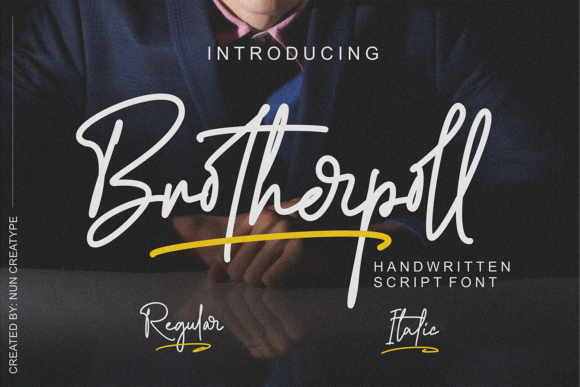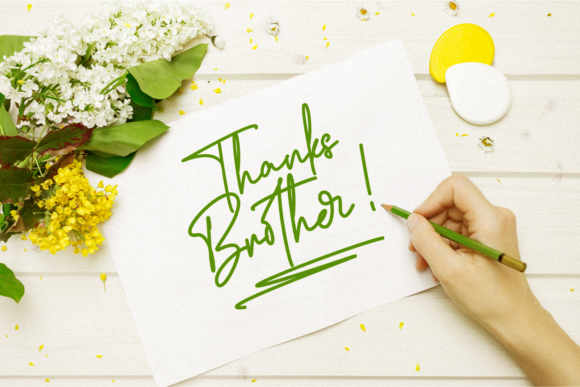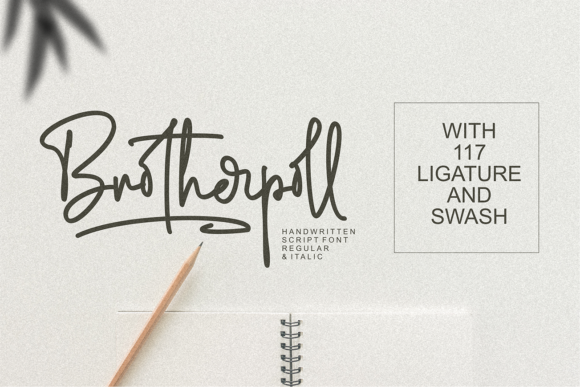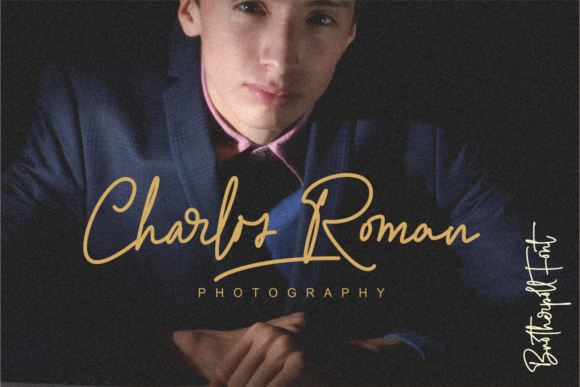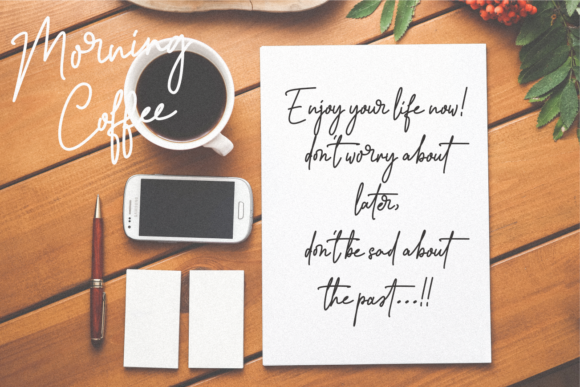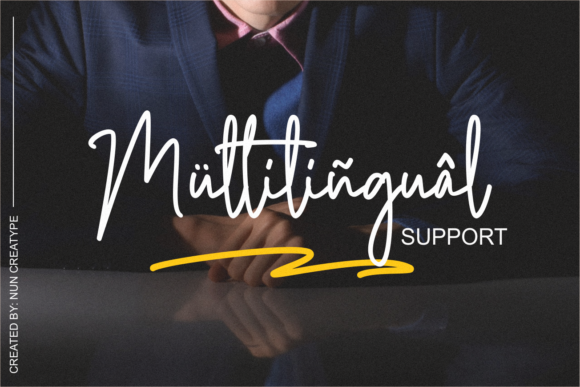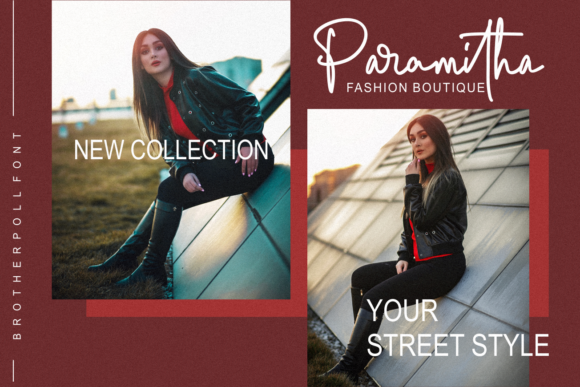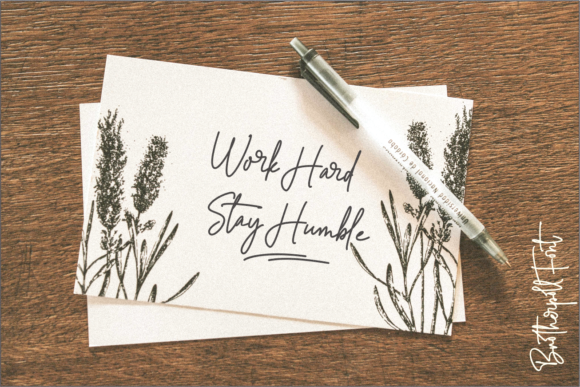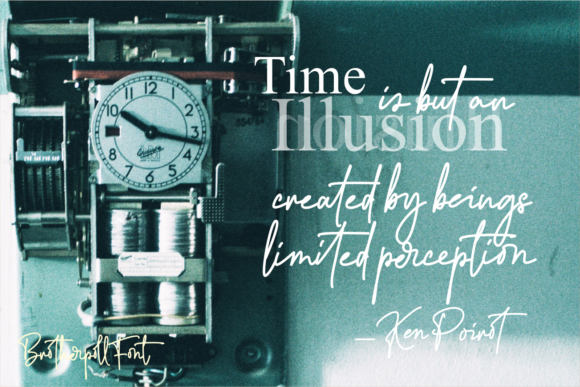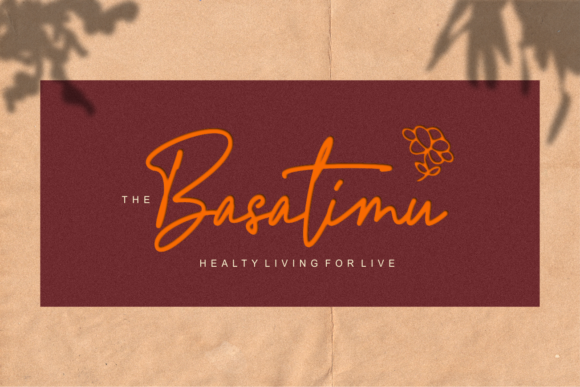
Brotherpoll Font
About Brotherpoll Font
Brotherpoll is a gorgeously light and charming script, perfect for Branding Projects, Logos, Wedding Designs and much more!